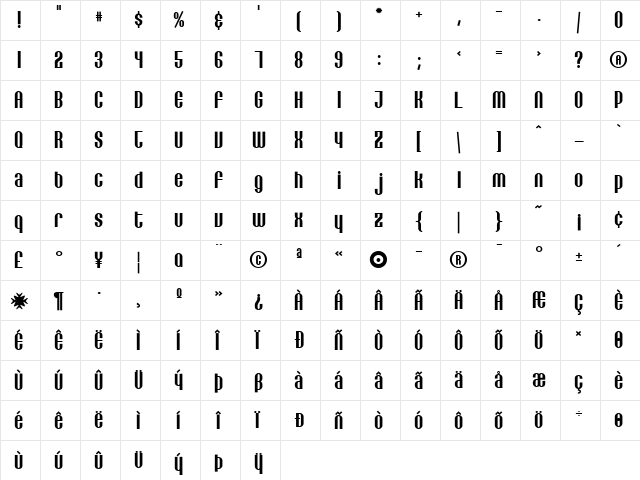
Lithia Bold
Design Context for Lithia Typeface
Lithia is a composed and adaptable typeface that performs quietly and consistently across a wide range of design contexts. Its bold stroke weight gives it real presence on the page.